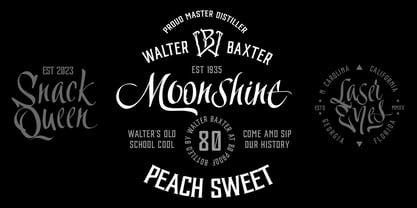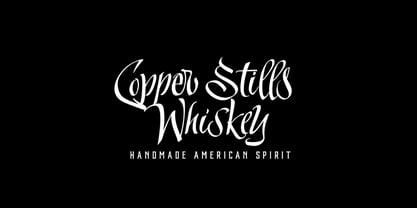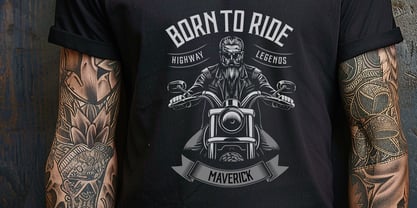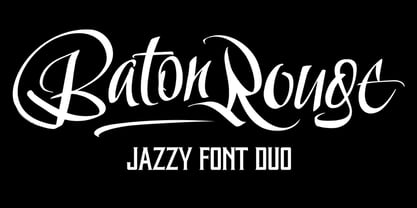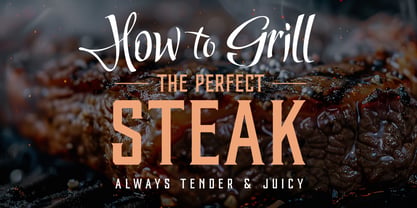
Baton Rouge
The Baton Rouge Font Family was designed by Aleksey Ivanov and published by vatesdesign. Baton Rouge contains 2 styles and family package options. More about this family
Introducing BatonRouge, a playful and versatile font duo that will add a touch of personality to your designs.
BatonRouge is perfect for:
• Logos and Branding: Create a brand identity that is memorable and unique.
• Social media: Make your social media posts stand out with unique and eye-catching lettering.
• Crafting projects: Use BatonRouge to create personalized gifts, home decor, and more.
• T-Shirts & Apparel: Create trendy designs with the script font's playful energy
What's inside the pack:
BatonRouge Script: A bouncy, expressive script, perfect for headlines, quotes, and playful messages. BatonRouge: A clean, readable sans-serif that complements the script beautifully and works well for body text, logos, and branding elements.
Both fonts include uppercase and lowercase letters, numbers, symbols, and language support for English.